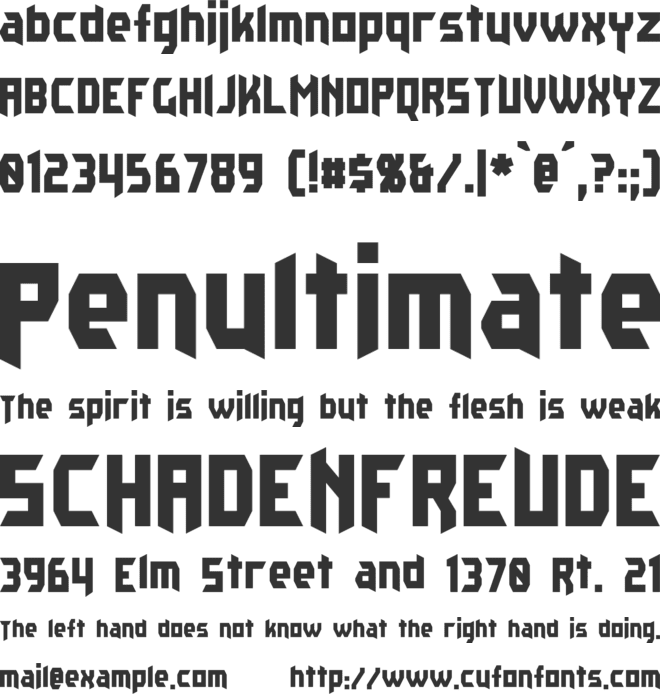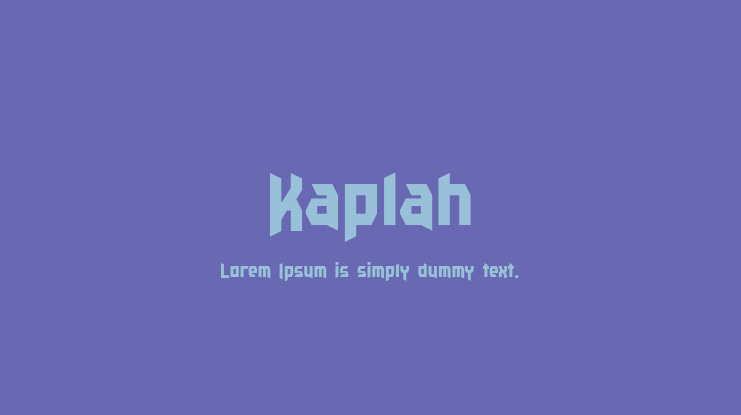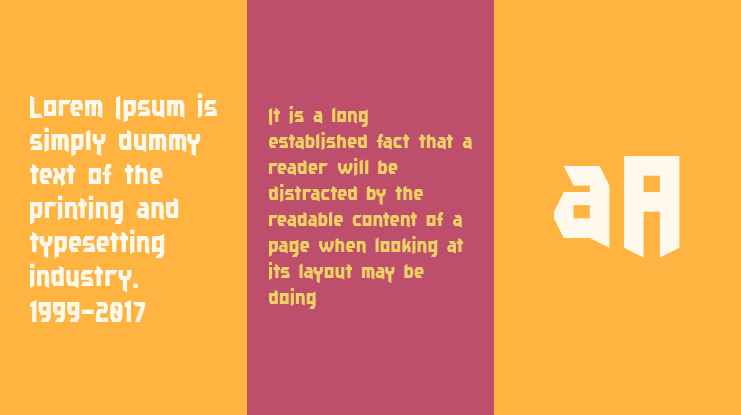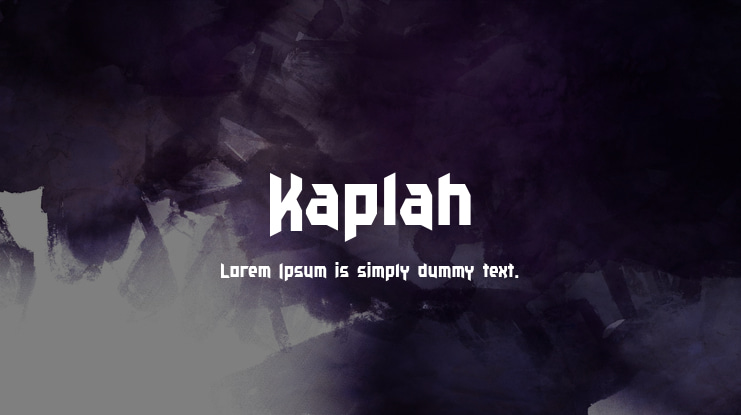
Kaplah Font Family
Neale Davidson
Kaplah is a simple, angular style based heavily on the "Klingon Interface" from Microprose's Birth of the Federation computer game. Includes full alpha-numerics, extended punctuation, Euro. Includes regular and italic weights.